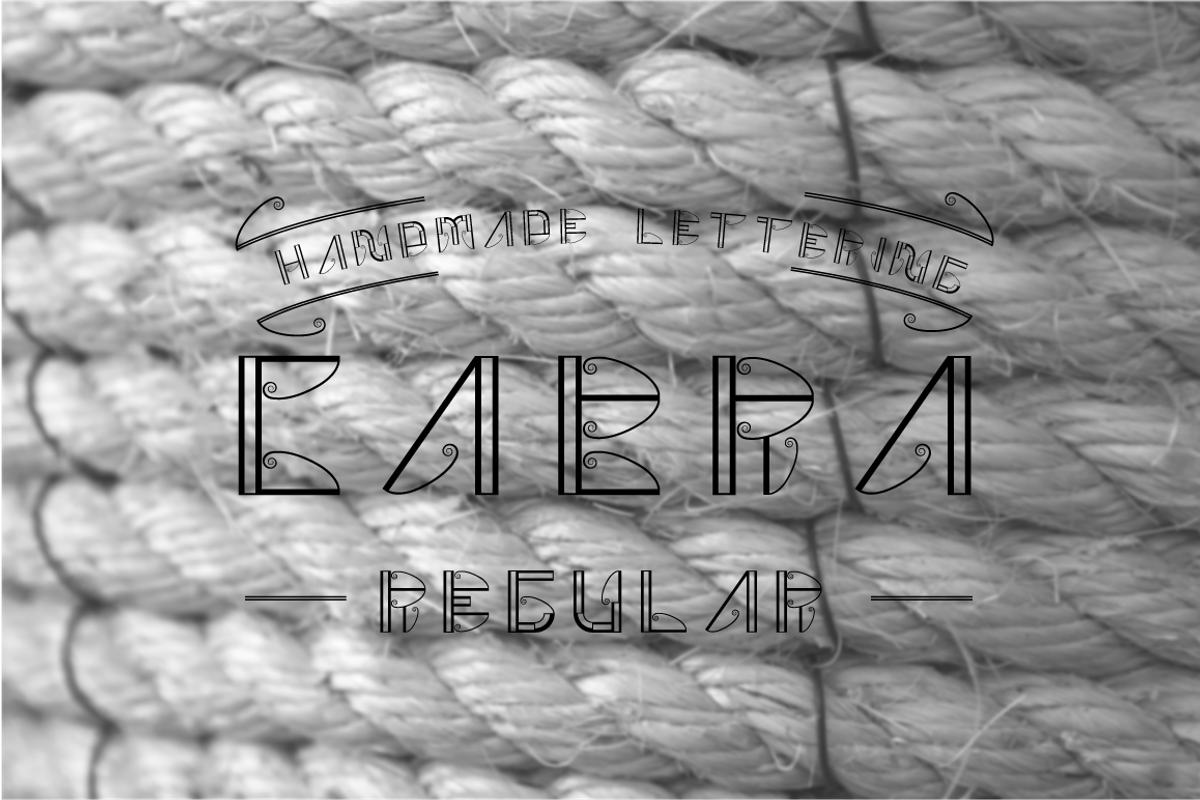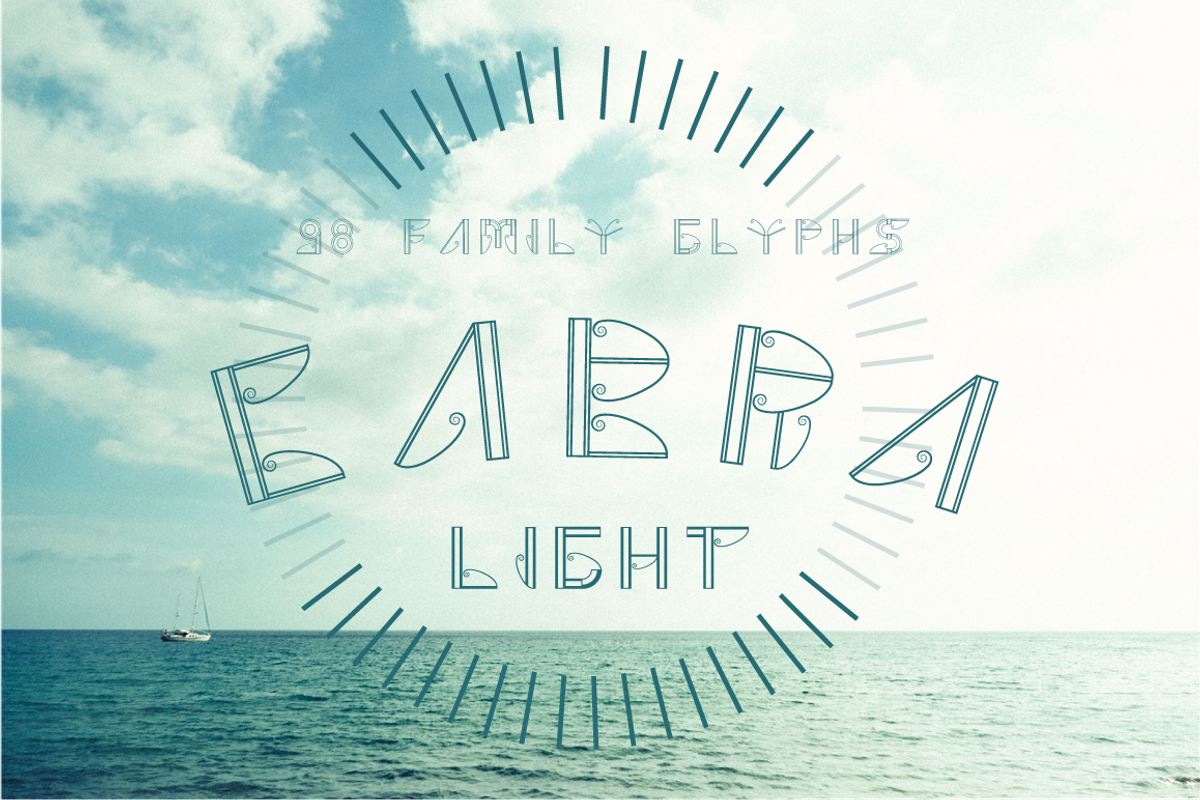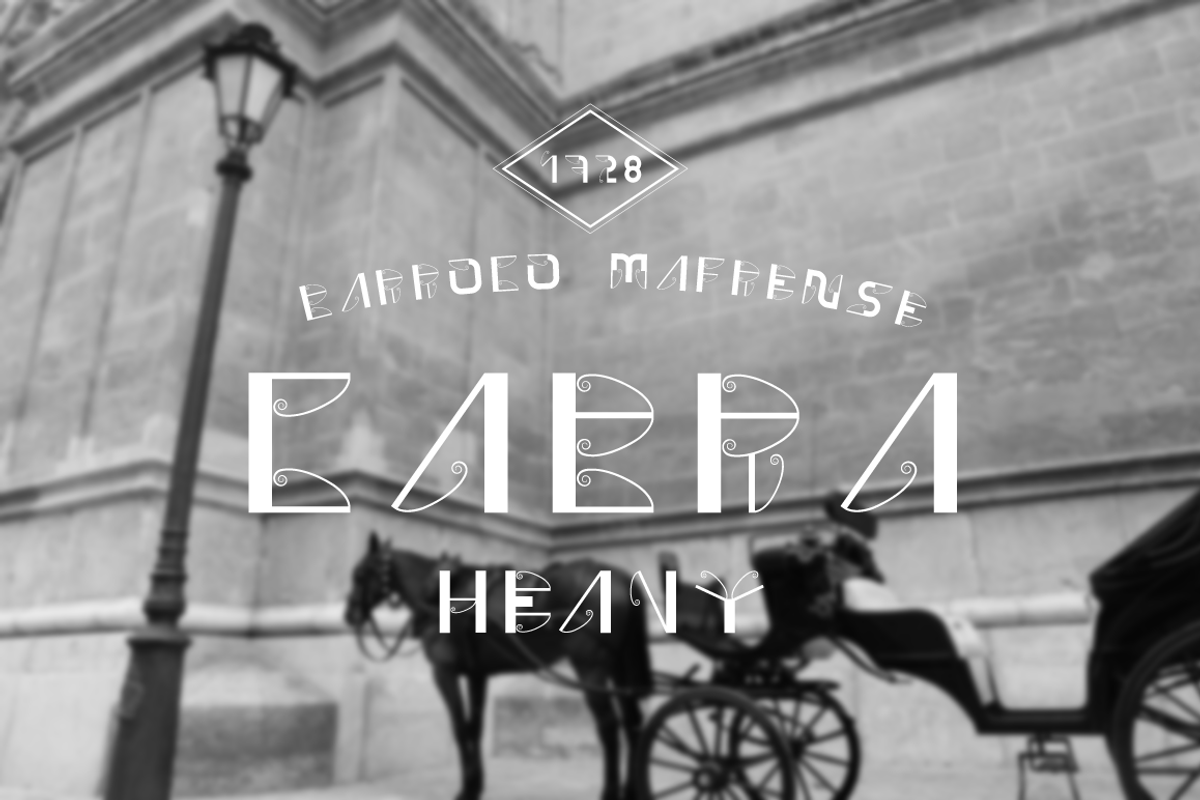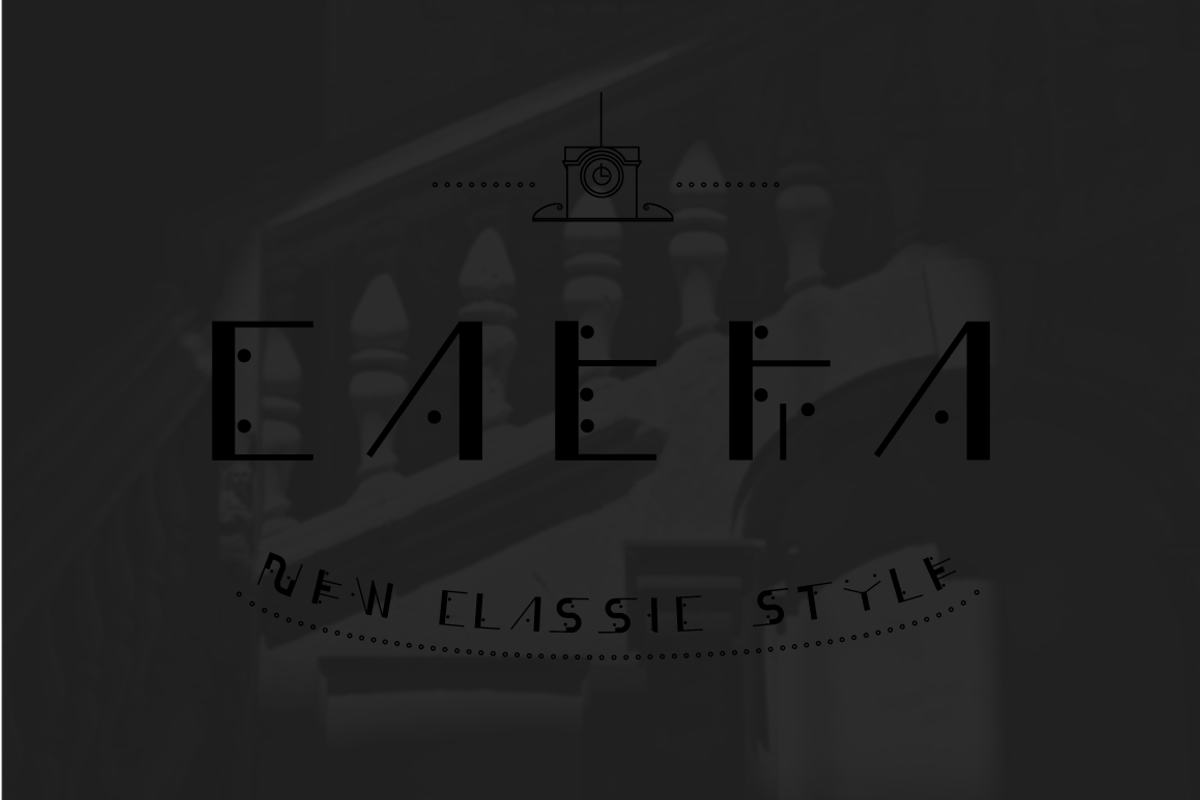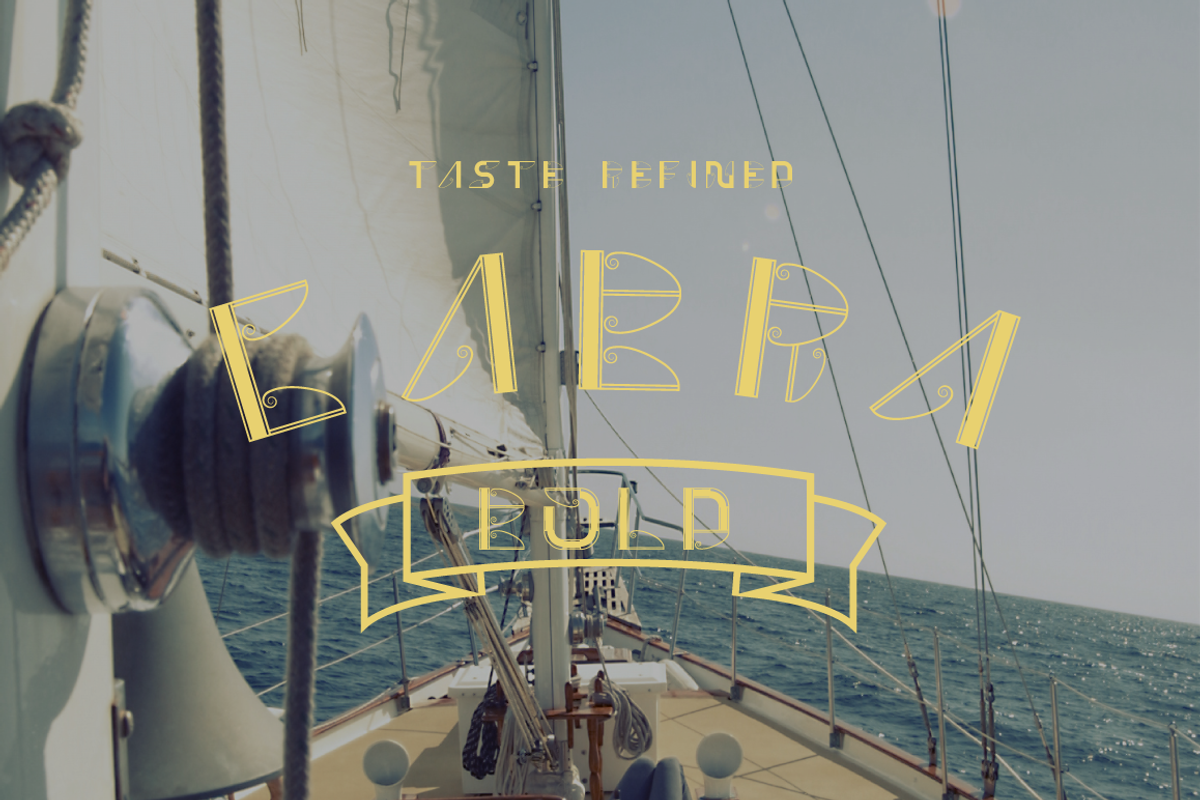
Cabra Typeface
Cabra Typeface by sergiosm is a font selected for branding, posters, packaging, typography.
- Cabra includes 5 weights, in which one of the weights presents the original source dash with a deconstruction in the finest ornament letter,
- Cabra Light
- Cabra Regular
- Cabra Bold
- Cabra Heavy
- CabraHoraEmPonto Regular
Why Cabra Typeface is worth a look
Cabra Typeface by sergiosm fits naturally into Branding, posters, packaging, typography.